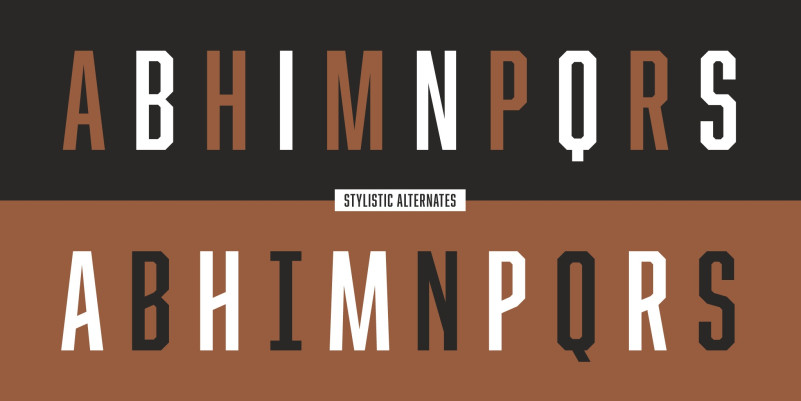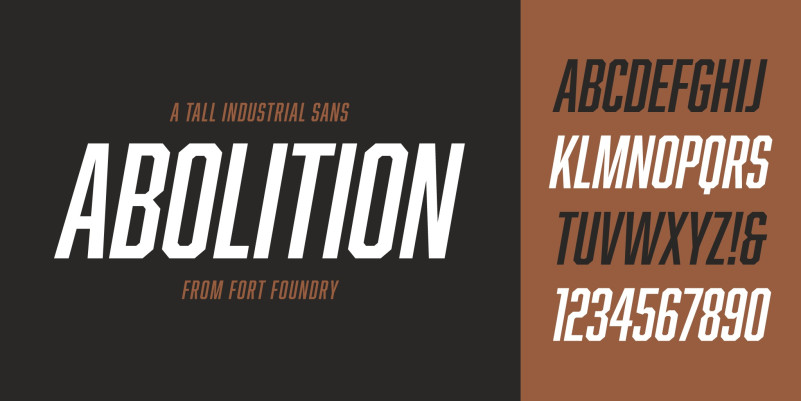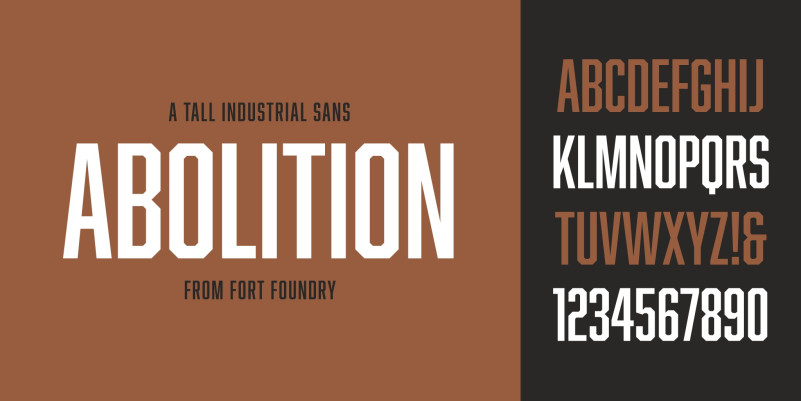
Abolition Font
Abolition Sans Serif Font, It’s a highly modified sans-serif version of Bourbon that comes with some a few surprises of its own. The typeface underwent an extensive revision in 2013. Features include stylistic alternates and multiple language support.